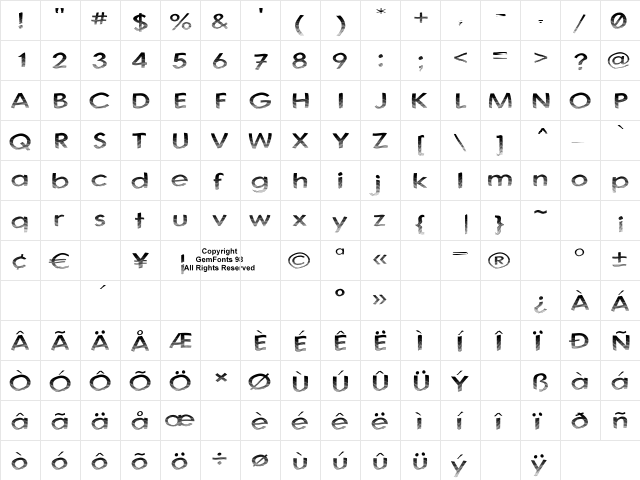
Australian Sunset Regular
Design Context for Australian Sunset Typeface
Australian Sunset offers clean, dependable letterforms without strong stylistic allegiance, making it a practical choice for designers who need flexibility.